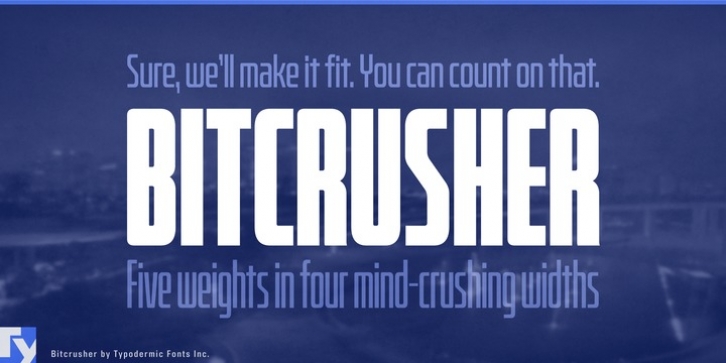
Publisher: Typodermic
Bitcrusher is an ultramodern, ultra-compact sans-serif typeface influenced by contemporary vehicle design and consumer electronics. It was designed for maximum compression, allowing you to fit more words in a line than techno typefaces normally allow. Bitcrusher is available in 5 weights an 4 widths. Condensed is pretty tight. Compressed is at the normal typeface compression limit. Crammed is unusually compact. Crushed is ludicrously concentrated. Bitcrusher features a stem, space and gap consistency which allows you to break the usual scaling and tracking rules. Do you want thicker stems? Take a narrower width and scale it wider. Want to go tighter than crushed? Scale it even narrower. You can't break it. Mathematical symbols, fractions, numeric ordinals and monetary symbols are in good supply. Almost all current Latin based languages are supported, including Vietnamese, Cyrillic languages and Greek. The commercial use desktop license for Bitcrusher Condensed Bold is free.